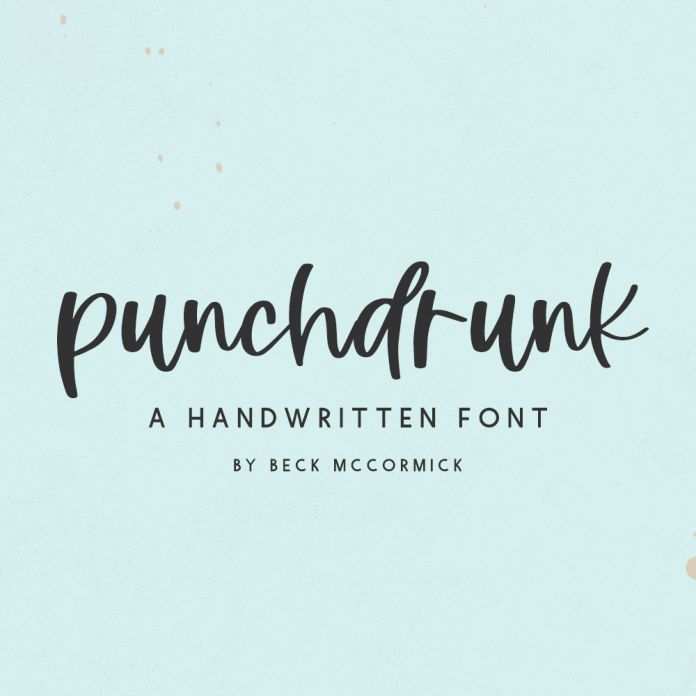
Introducing Punchdrunk, a quirky modern font. Punchdrunk is a cute & legible handlettered font that features ligatures to customize the look of your text!
Punchdrunk is best for:
- feminine, crafty projects with your Silhouette machine, or your SVG design business
- wedding invitations, wedding favors, or wedding decor
- 14 ligatures: bb, cc, dd, ee, ff, gg, ll, mm, nn, oo, pp, rr, ss, tt